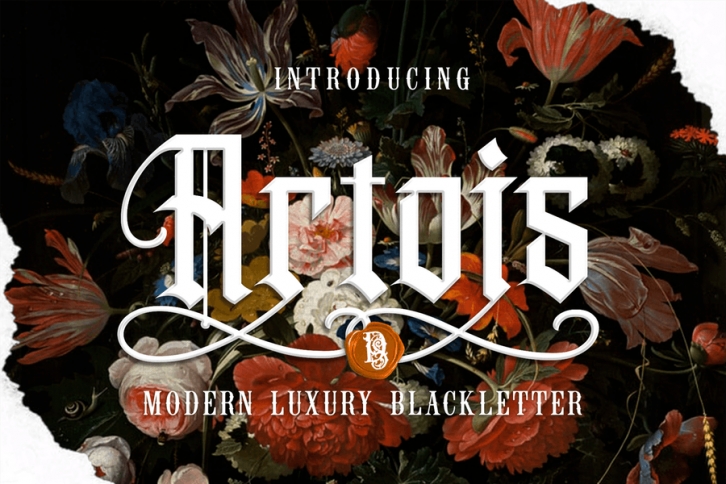
Artois is a modern blackletter font. Cromartyc is great for product logo, poster title, headline, packaging, badge, packaging logo, clothing brand logo, Vintage design, and much more.